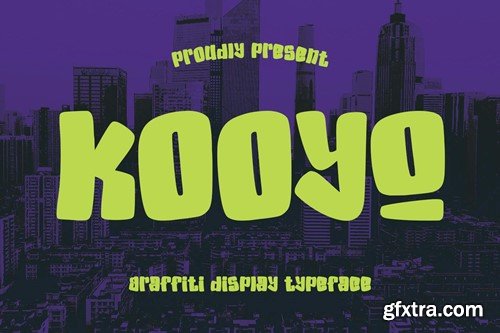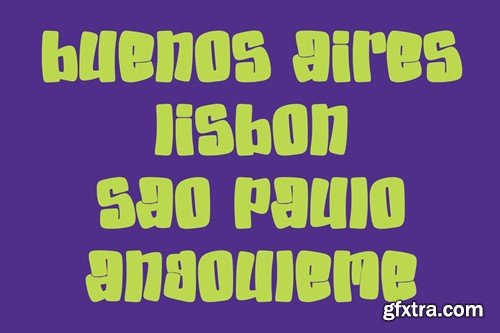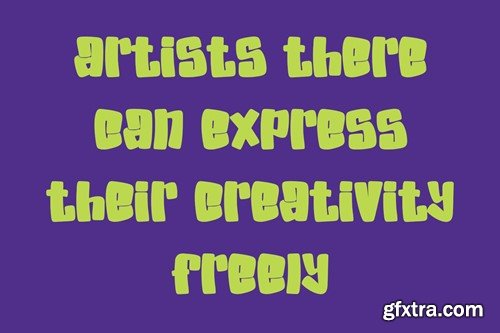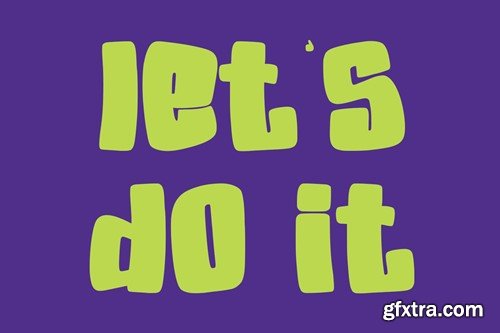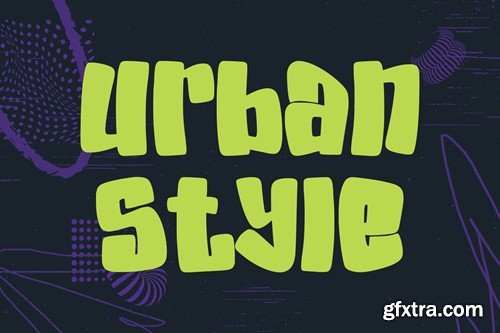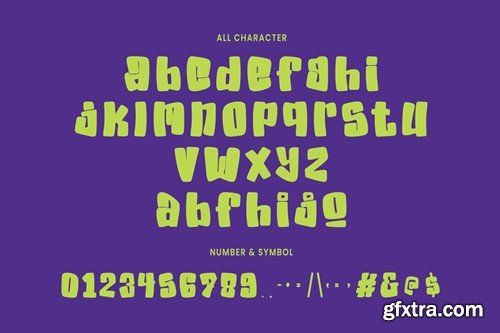
Kooyo Graffiti Display Typeface
Kooyo graffiti display typeface, bold stroke, fun character with a bit of ligatures. To give you an extra creative work. Kooyo graffiti display typeface support multilingual more than 100+ language. This font is good for logo design, Social media, Movie Titles, Books Titles, a short text even a long text letter and good for your secondary text font with script or serif. Make a stunning work with Kooyo graffiti display typeface. What you get: Many Thanks, Maulana Creative